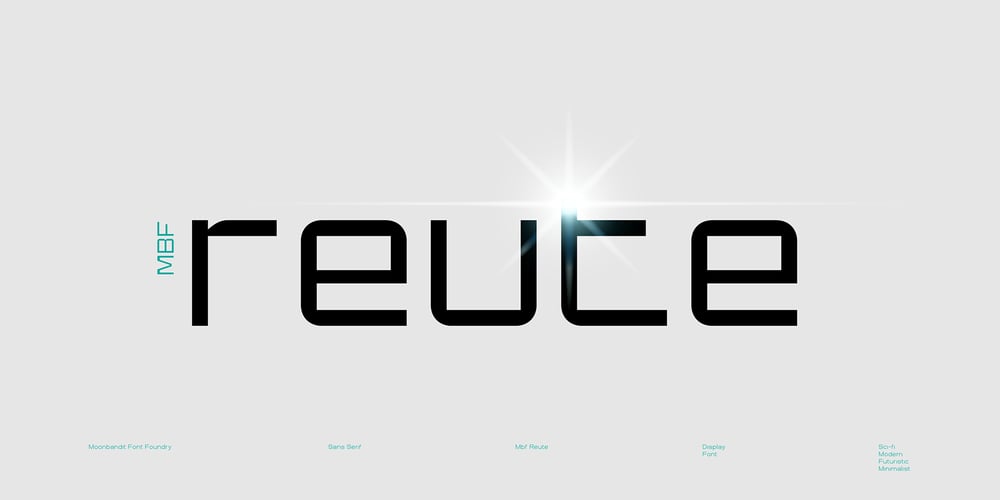
MBF Reute Font Family was designed by Bramaji Dipa Manggala and published by Moonbandit. MBF Reute contains 3 styles and family package options. Introducing MBF Reute, a cutting-edge font that redefines modern typography. With its squared, minimalist design, this typeface strikes a perfect balance between rounded warmth and sharp precision. Clean lines and a contemporary aesthetic make MBF Reute the go-to choice for a sleek and versatile visual language.